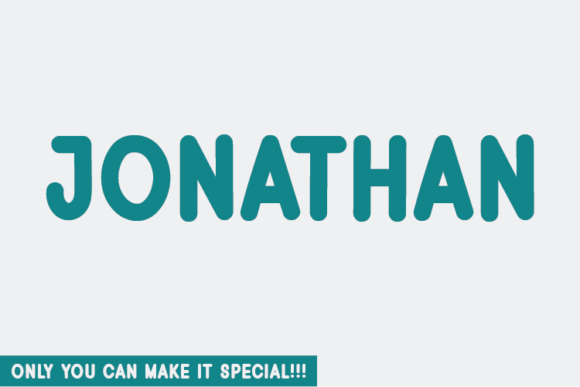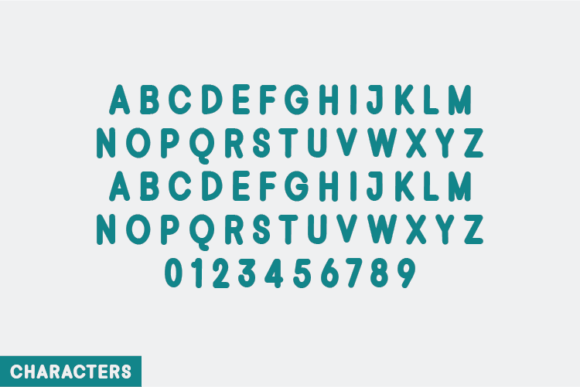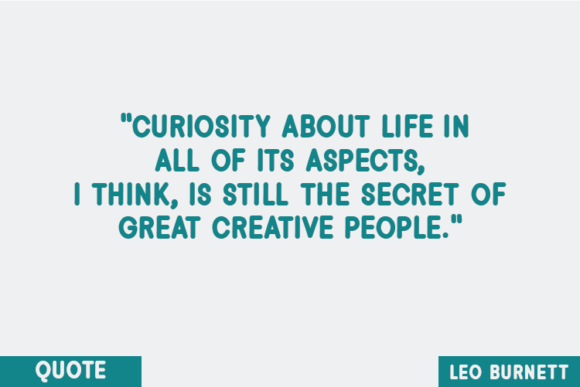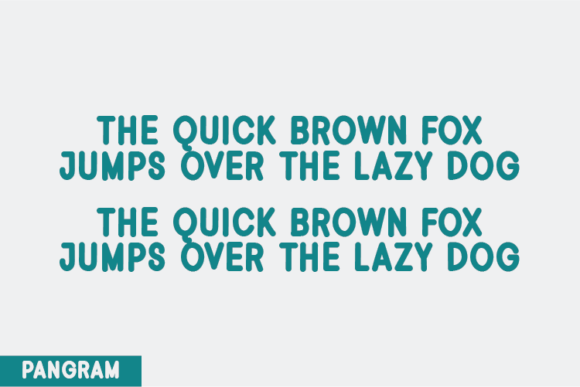
Jonathan Font: A Cute & Natural Handwritten Font for Cricut Crafts
About the Jonathan Font
Discover the charm of Jonathan Font. This font is a perfect blend of modern aesthetics and classic appeal. Jonathan is a natural handwritten font created without changing a single node in each character’s indentation – this makes this font very interesting and unique. Perfect for quotes, notes, tees, and any product design.
Jonathan’s organic, handwritten nature makes it ideal for projects requiring a personal touch. It excels in headlines, short text blocks, and branding applications where a handcrafted feel is desired, such as logos, packaging for artisanal products, or short quotes on social media. Avoid using it for lengthy body copy or UI elements; its informality may hinder readability in extended text.
Its slightly quirky, yet friendly personality pairs well with clean sans-serif fonts like Open Sans or Lato for a balanced contrast. For a more playful approach, consider pairing it with a geometric sans-serif like Futura or a rounded script like Pacifico. Alternatively, a classic serif like Garamond can add a touch of sophistication and lend a sense of established authority.
Jonathan’s overall mood is approachable and friendly, yet retains a unique character thanks to its unaltered nodes. This makes it suitable for brands focused on authenticity, craftsmanship, and individuality, rather than corporate formality or technological advancement.
Jonathan Font Usage Examples
Jonathan Font Example